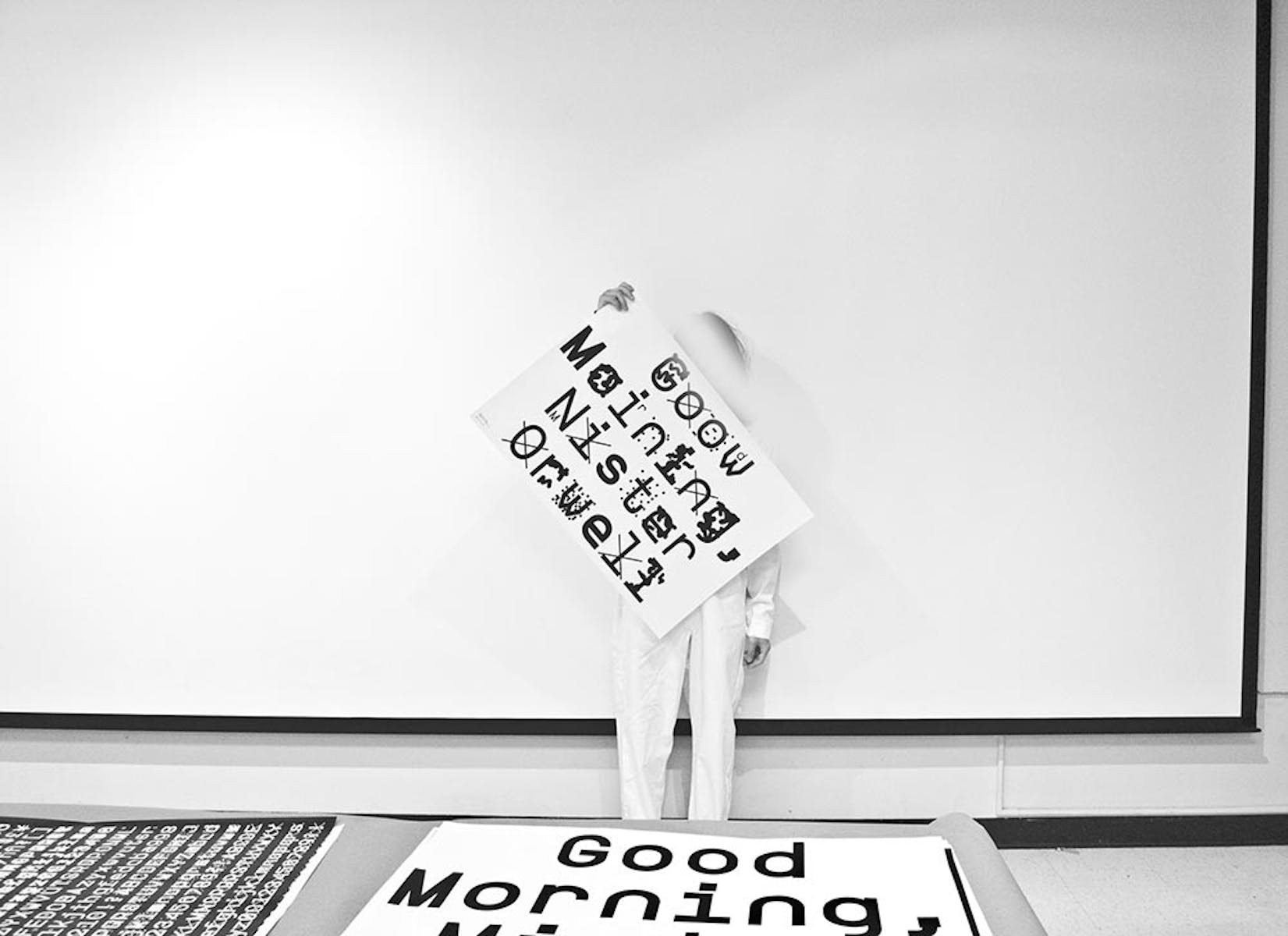
“We feel free because we lack the language to articulate our unfreedom.” —Slavoj Žižek
For me, Žižek’s words are even more potent in light of recent news about domestic surveillance programs. As a former contractor with the US National Security Agency (NSA), these issues hit especially close to home. During my service in the Korean military, I worked for two years as special intelligence personnel for the NSA, learning first-hand how to extract information from defense targets. Our ability to gather vital SIGINT (Signal Intelligence) information was absolutely easy. But, these skills were only applied outwards for national security and defense purposes — not for overseeing American citizens. It appears that this has changed. Now, as a designer, I am influenced by these experiences and I have become dedicated to researching ways to “articulate our unfreedom” and to continue the evolution of my own thinking about censorship, surveillance, and a free society.
“What does censorship reveal? It reveals fear.” —Julian Assange
Over the course of a year, I researched and created ZXX, a disruptive typeface which takes its name from the Library of Congress’ listing of three-letter codes denoting which language a book is written in. Code “ZXX” is used when there is: “No linguistic content; Not applicable.” The project started with a genuine question: How can we conceal our fundamental thoughts from artificial intelligences and those who deploy them? I decided to create a typeface that would be unreadable by text scanning software (whether used by a government agency or a lone hacker) — misdirecting information or sometimes not giving any at all. It can be applied to huge amounts of data, or to personal correspondence. I drew six different cuts (Sans, Bold, Camo, False, Noise and Xed) to generate endless permutations, each font designed to thwart machine intelligences in a different way. I offered the typeface as a free download in hopes that as many people as possible would use it.
This short video shows how the typeface confuses Optical Character Recognition (OCR) artificial intelligence.
ZXX is a call to action, both practically and symbolically, to raise questions about privacy. But it represents a broader urgency: How can design be used politically and socially for the codification and de-codification of people’s thoughts? What is a graphic design that is inherently secretive? How can graphic design reinforce privacy? And, really, how can the process of design engender a proactive attitude towards the future — and our present for that matter? After releasing the project in May 2012, I was pleased by the fruitful responses I got and shared with the public. I’ve seen the typeface circulate in publications, web environments, and banners, and it was prophetically featured on the cover of Chinese Design 360° Magazine — amusingly censoring Sagmeister & Walsh’s self-expressive nudity.
“I don’t have to write about the future. For most people, the present is enough like the future to be pretty scary.” —William Gibson
Our lives in cyberspace are overloaded with impalpable and extensive personal information that is gathered, intercepted, deciphered, analyzed, and stored. With this information government and corporations can easily create an informational architecture that traps us in the structures of the World Wide Web and social media. Restricting and repressing our communication tools under the name of “homeland security” is only a small step into a totalitarian society. This non-physical-yet-ideological violence is what allows us to lapse into lethargic silence. But really, we shouldn’t be afraid to question the authorities’ continual intrusions.
Edward Snowden, the former CIA employee and whistleblower of NSA’s Project Prism, wasn’t the first man to reveal the vulgarity of the world’s biggest intelligence agency. William Binney, an ex-NSA employee, already disclosed the secrecy of the agency’s perpetual inspections last year. The increasing activities of whistleblowers are a significant cue to the urgency of our diminishing privacy. When surveillance becomes a quotidian exercise, our lives in the network will be completely destroyed. This growing invasion of privacy and militarization of cyberspace dehumanizes us. Government and corporations’ physical, mental, and technological intrusions must stop in order to halt the surveillance state.
“Those who would give up Essential Liberty to purchase a little Temporary Safety, deserve neither Liberty nor Safety.” —Benjamin Franklin
Project ZXX is my humane contribution and homage to the activists, artists, and designers who have been actively fighting for our civil liberties. One such activist is Jacob Appelbaum, an independent computer security researcher and hacker, who co-developed Tor Project to keep our online activities anonymous. Tor Project’s system is structured to bounce around the distributed network of relays, which makes the accumulated metadata dysfunctional. Adam Harvey is an active New York–based artist who has a vast amount of peculiar counter-surveillance projects. Harvey’s works are vital in the way he incorporates privacy matters into provocative fashion aesthetics, such as anti-drone hoodies. Metahaven, an Amsterdam-based design and research studio, might be at the vanguard of critical and social design movements today — mapping the nexus of corporate branding, social media, and government with challenging contemporary graphic design strategies. Hito Steyerl’s How Not to be Seen: A Fucking Didactic Education. MOV File, a piece in the Venice Biennale, humorously depicts the dark side of our visual culture with silly DIY educational videos. Electronic Frontier Foundation (EFF) launched a website to provide Netizens alternative ways to opt out of PRISM. People with creative conscience will be the ones to provoke these discussions.
What Snowden disclosed is nothing new. The stakes for our democracy have always been high. But now there needs to be robust action and discussion about the current state of affairs. Many suggest that we’ve already lost our privacy and are indifferent of the status quo. But I believe that stripping humanity of its freedoms can never be justified as a natural evolution. It’s our duty to call out crimes against democracy.